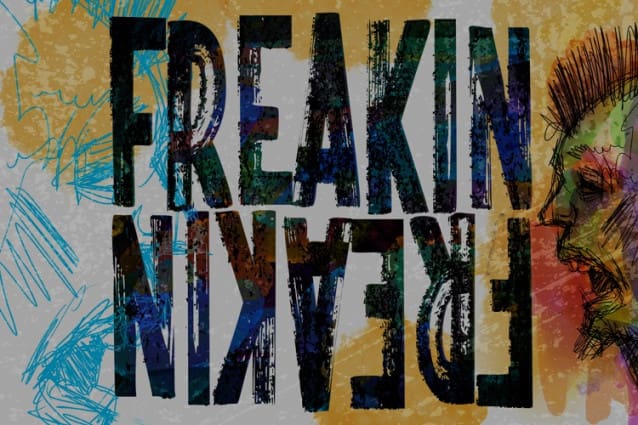
Vtks Freakin Font
Vtks Freakin Font, Perfectly fit for branding, logo, wedding things, greeting cards, fashion, lookbook, marketing promotion, anytime you want to look fancy elegant but still casual.